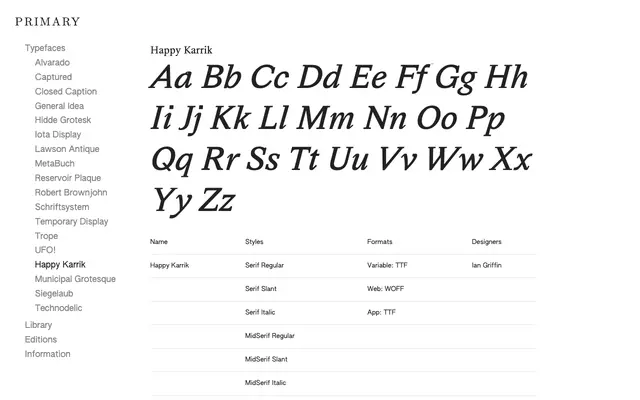
Happy Karrik
An open-source variable typeface by Ian Griffin that merges Happy Times at the IKOB and Karrik into a single design spanning serif, mid-serif and sans-serif across nine instances.
Created by combining two existing open-source typefaces, Happy Times at the IKOB by Lucas Le Bihan and Karrik by Jean-Baptiste Morizot and Lucas Le Bihan, the family moves across contrasting classifications within one variable font. Nine instances cover Serif, MidSerif and Sans each in Regular, Slant and Italic, with 220 glyphs including extended Latin, lining figures, alternates and ligatures. Released under the SIL Open Font License, it is free to use, modify and redistribute.
Happy Karrik spans serif, mid-serif and sans-serif axes within a single variable font, blending contrasting classifications from its two source typefaces into one continuous design space.